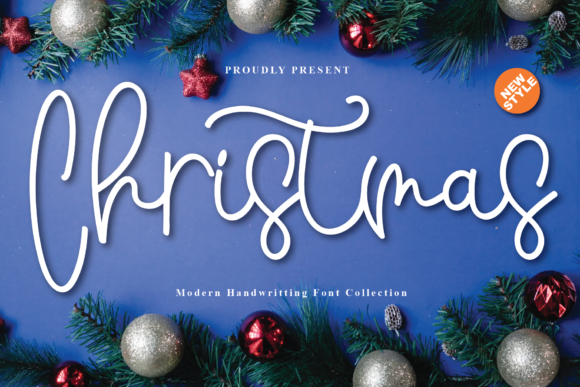
The Perfect Script for Your Holiday Designs
As a designer, there’s nothing quite like the feeling of discovering a new font that perfectly captures the essence of a particular theme or style. It’s a moment of pure creative joy, and one that can elevate your work from good to great in an instant. For me, that moment came when I stumbled upon the Christmas Font – a beautiful and delicate script font that exudes elegance and class.
Christmas Font was specifically crafted for those who need a beautiful and refreshing look to their designs. Whether you’re creating holiday cards, gift tags, or social media graphics, this font is sure to add a touch of sophistication and whimsy to your work. And with its versatility and timeless charm, it’s a valuable addition to any designer’s toolkit.
So, what makes Christmas Font so special? For one, its unique blend of classic and modern elements makes it a standout choice for designers looking to add a touch of holiday magic to their projects. Whether you’re working on a festive campaign or simply want to add a bit of sparkle to your designs, Christmas Font is the perfect choice.
Christmas Font Key Features
- Size: The font comes in a single weight, but it is highly customizable, allowing users to adjust the size and style to suit their needs.
- Resolution: The font is optimized for high-resolution displays, ensuring crisp and clear text at any zoom level.
- Unique Characteristics: The Christmas Font features intricate, hand-drawn designs and ornaments, making it perfect for festive and holiday-themed projects.
- Character Set: The font includes a wide range of characters, including Latin, Cyrillic, and Greek alphabets, as well as punctuation and special characters.
- Language Support: The font supports multiple languages, including English, Spanish, French, German, Italian, Portuguese, Dutch, Russian, Chinese, Japanese, and many more.
Christmas Font Review
First off, I have to say that the Christmas Font has a certain charm to it. The way the letters curve and the ornaments are designed is quite festive and fun. ✨ I can see it being used for holiday-themed designs, especially on cards and gift tags.
The font is also quite versatile, with a range of weights and styles to choose from. This makes it easy to use in different design contexts, from playful to elegant. ✨ The font also supports a wide range of languages, which is a bonus.
- ⚠️ The font may be a bit too over-the-top for some designs. The ornaments and curves can make the text feel cluttered and busy.
- ⚠️ The font is not ideal for body text. It’s better suited for headlines and titles.
- ⚠️ Some characters may not render correctly in certain situations, which can be frustrating.
Overall, I think the Christmas Font is a fun and festive choice for holiday designs. While it may have some limitations, it’s a great option for those looking to add some holiday cheer to their designs.
Tips for Getting the Most Out of Christmas Font
Use Christmas Font in combination with other festive design elements, such as holly, snowflakes, or reindeer, to create a cohesive and festive atmosphere. Experiment with different font sizes and styles to add visual interest and emphasis to your text. Consider using Christmas Font in a bold or italic style to add a touch of whimsy and fun to your design.
Christmas Font is commonly used in holiday-themed designs, such as Christmas cards, gift tags, and party invitations. It’s also used in festive social media posts, blog articles, and advertising campaigns. Use Christmas Font to add a touch of holiday cheer and festive atmosphere to your designs.